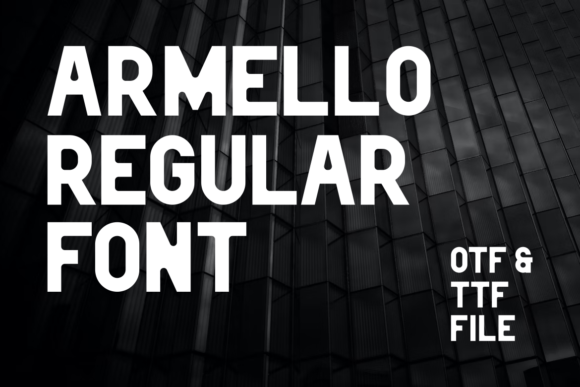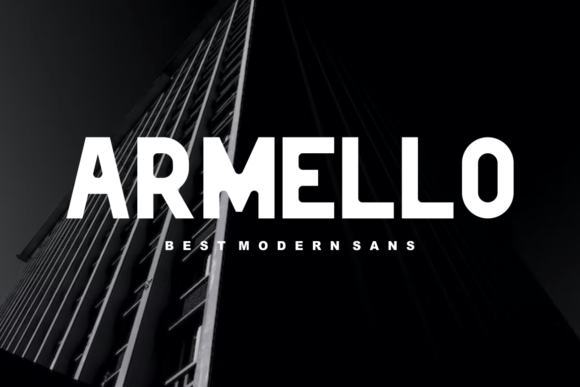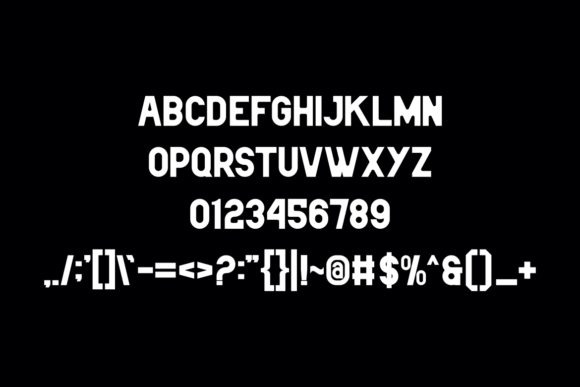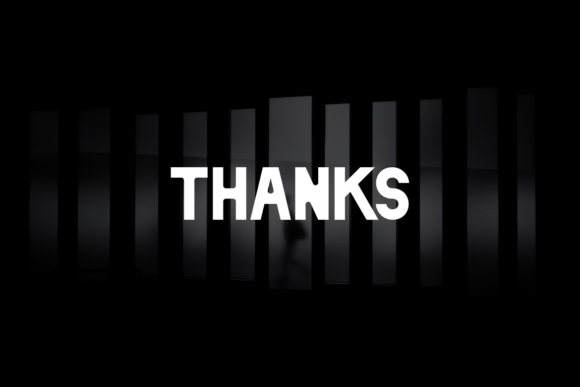
Armello Font – A Modern and Bold Display Font for Your Branding Needs
In the world of typography, fonts play a crucial role in conveying a brand’s message and identity. With the vast array of fonts available, it can be overwhelming to choose the perfect one for your project. However, if you’re looking for a modern and bold display font that can elevate your branding, look no further than the Armello Font. In this article, we’ll dive into the features and benefits of the Armello Font and explore how it can be used to enhance your designs.
What is Armello Font?
Armello Font is a bold and authentic display font designed to make a statement. Its modern and sleek design makes it perfect for a wide range of applications, from logos and t-shirt printing to esport and more. The font’s unique style and characteristics set it apart from other fonts, making it an excellent choice for designers and crafters looking to add a touch of sophistication to their work.
Key Features of Armello Font
The Armello Font boasts several key features that make it an attractive option for designers and crafters. Some of its notable features include:
• Bold and Authentic Design: The Armello Font has a bold and authentic design that commands attention and makes a statement.
• Modern and Sleek: The font’s modern and sleek design makes it perfect for a wide range of applications, from logos to t-shirt printing.
• High Versatility: The Armello Font is suitable for various branding projects, including logos, t-shirt printing, esport, and more.
Benefits of Using Armello Font
The Armello Font offers several benefits to designers and crafters, including:
• Unique and Memorable: The font’s unique design makes it easy to create memorable and eye-catching designs that stand out from the crowd.
• Professional and Sophisticated: The Armello Font’s modern and sleek design gives your designs a professional and sophisticated look.
• Time-Saving: With the Armello Font, you can save time and effort in creating high-quality designs that meet your branding needs.
Armello Font in Design and Crafting
The Armello Font can be used in a wide range of design and crafting applications, including:
• Logo Design: Use the Armello Font to create bold and memorable logos that represent your brand.
• T-Shirt Printing: The font’s bold design makes it perfect for t-shirt printing and other apparel.
• Esport: The Armello Font’s modern design makes it suitable for esport and gaming-related designs.
• Stationery and Packaging: Use the font to create professional and sophisticated stationery and packaging designs.
In conclusion, the Armello Font is a modern and bold display font that can elevate your branding and design projects. Its unique and memorable design, combined with its ease of use and high versatility, make it an excellent choice for designers and crafters. Whether you’re creating logos, t-shirt printing, esport, or other designs, the Armello Font is sure to make a statement and leave a lasting impression.